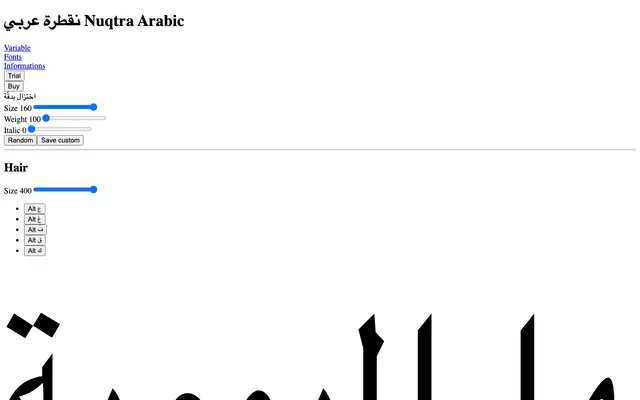
Nuqtra Arabic
A variable Arabic typeface from Pizza Typefaces spanning Hair to Light weights, with an italic axis and support for Arabic, Persian and Urdu scripts.
Released as a variable font, it offers a weight axis running from a barely-there Hair to Light, alongside a separate italic axis, giving designers fine control over expression within a single file. The family covers Arabic, Persian and Urdu, with alternate glyph options for several characters including ع, غ, ف, ق and ك. Specimen copy draws on the Nastaliq calligraphic tradition as a cultural reference, though the typeface itself is a contemporary, optically regularised Arabic design.
A contemporary Arabic variable typeface with upright and italic axes, designed for both Arabic and Persian/Urdu scripts; its clean, geometric construction places it within the Arabic sans category rather than any calligraphic tradition despite the Nastaliq-influenced specimen copy.